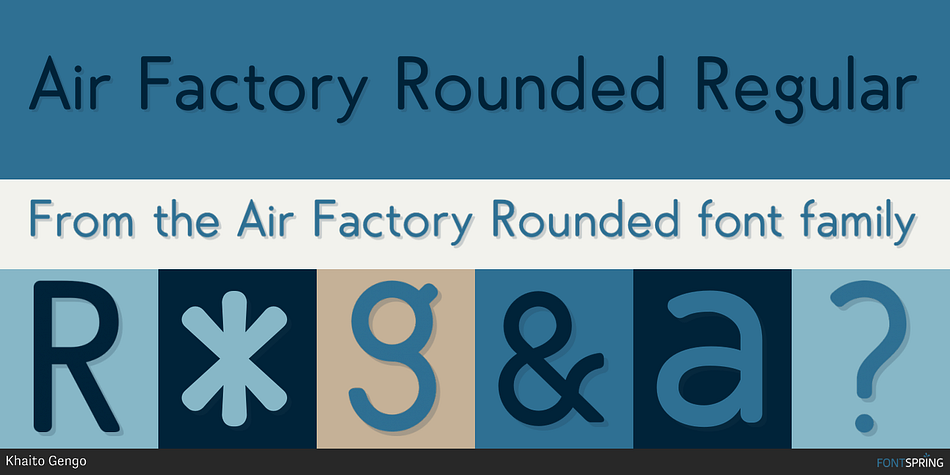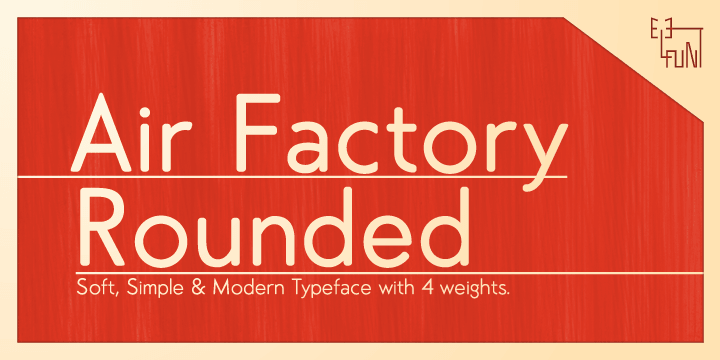
Air Factory Rounded Regular
Air Factory Rounded is a sans serif font family. This typeface has four styles and was published by Khaito Gengo.
Air Factory Rounded was made for soft looking version of the original font Air Factory.
Air Factory Rounded is a very simple and modern sans-serif and consisting of 4 weights. This contemporary typefaces would be good use for restaurant, retail, book, poster etc. Air Factory Rounded also features various ligatures, stylistic alternates, fractions, and languages as well.